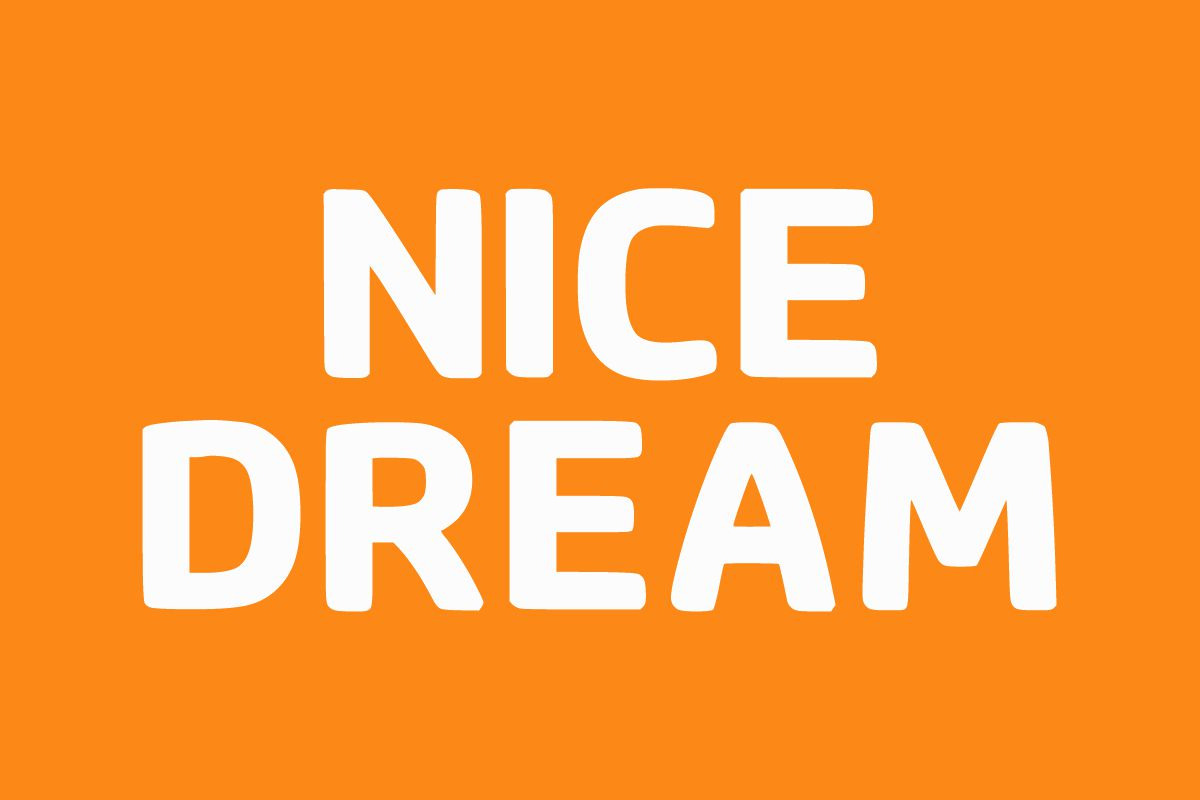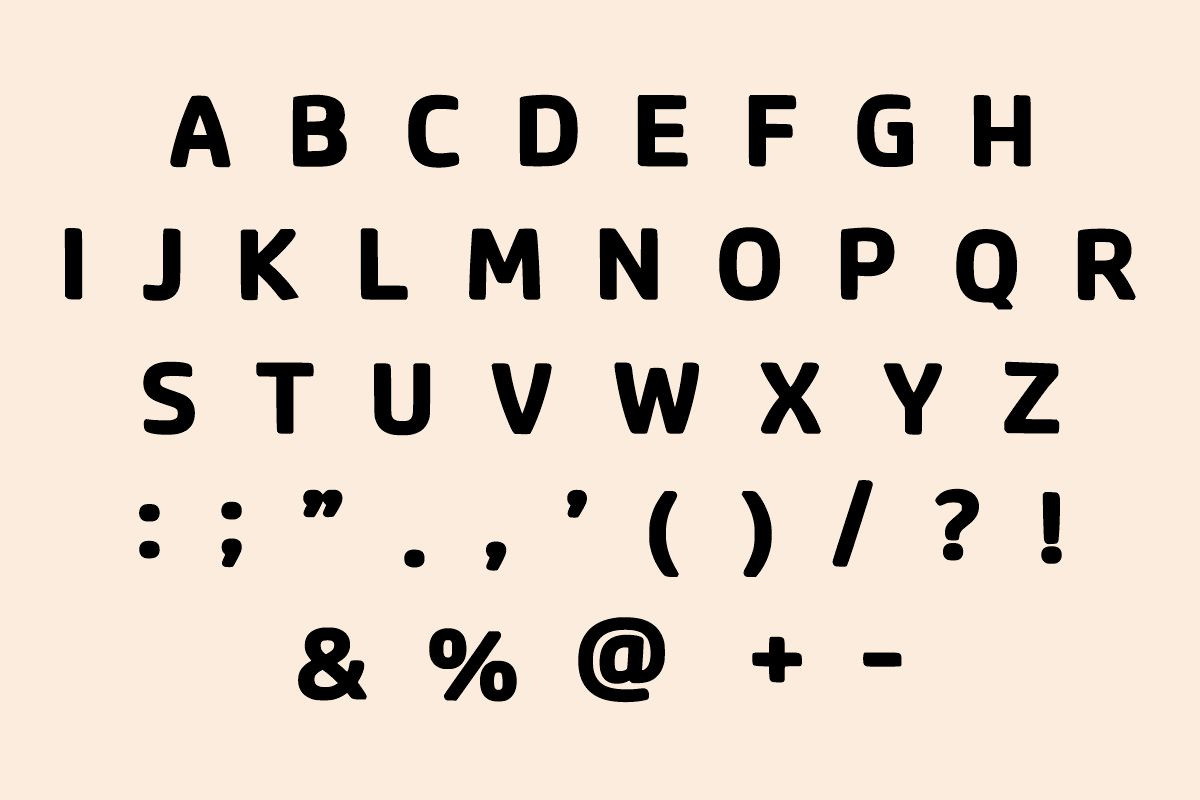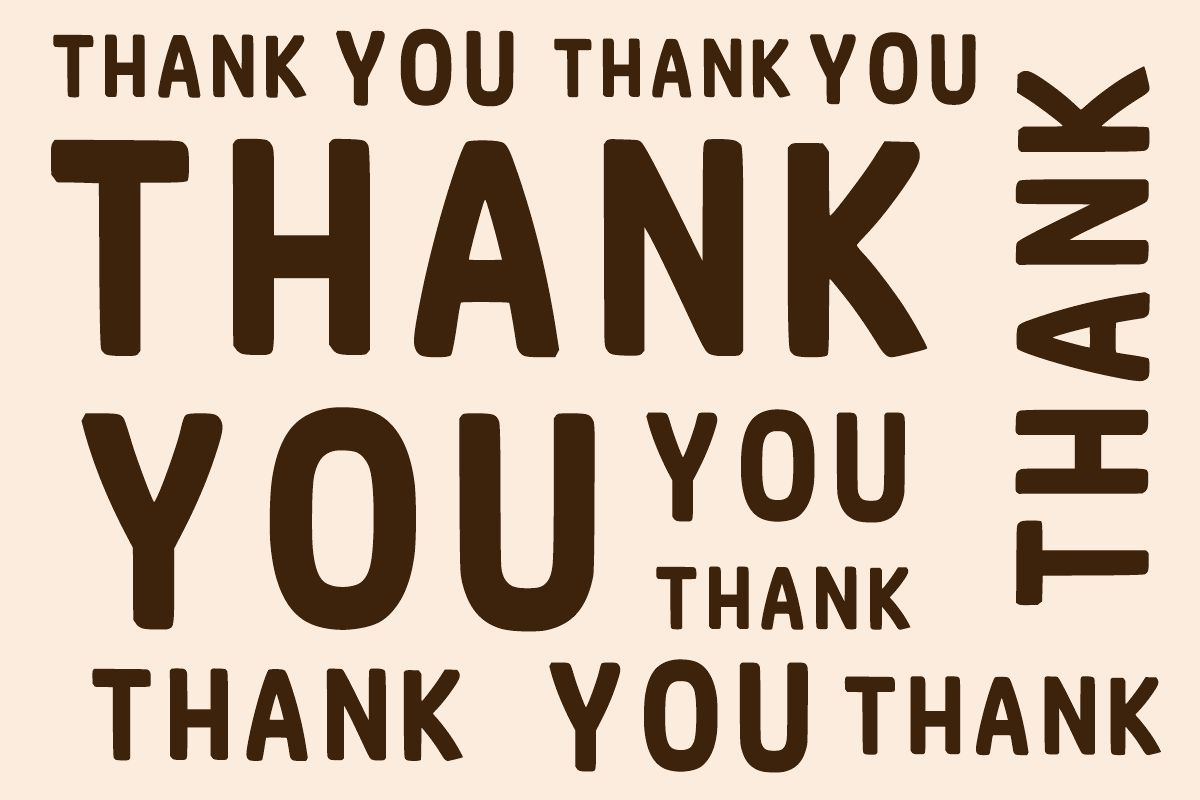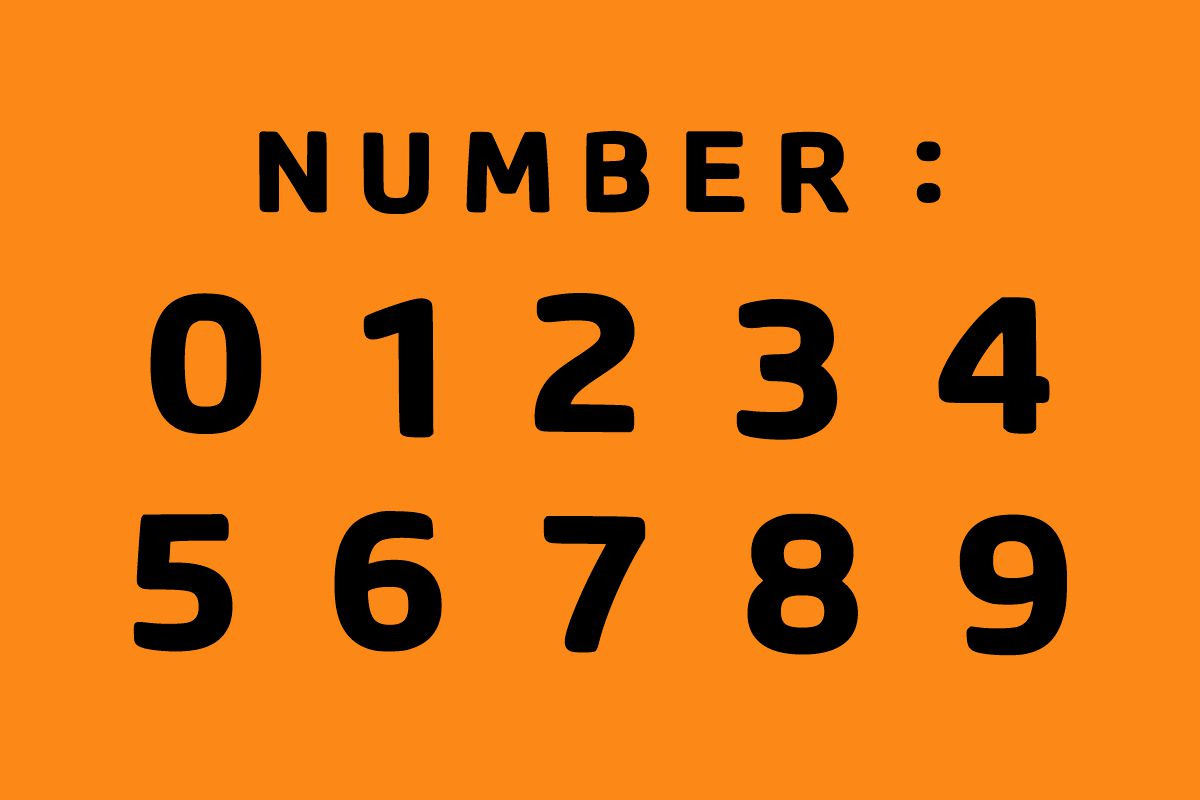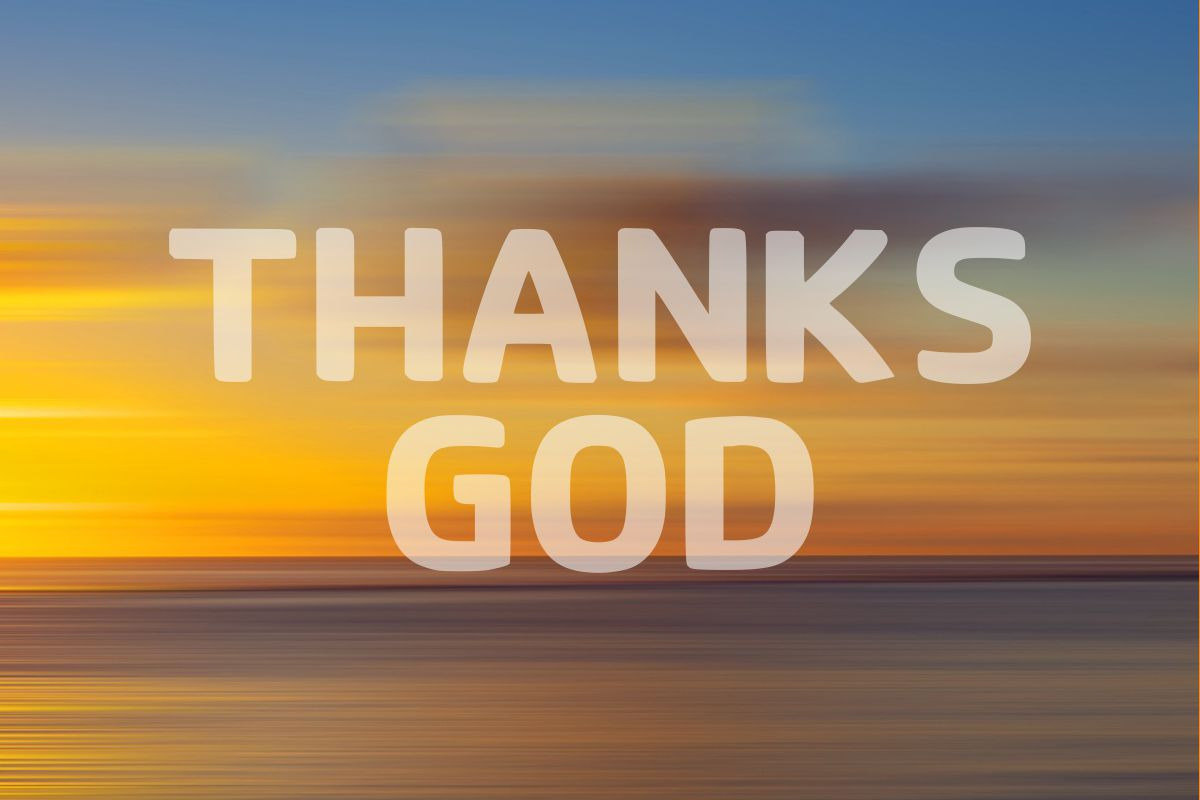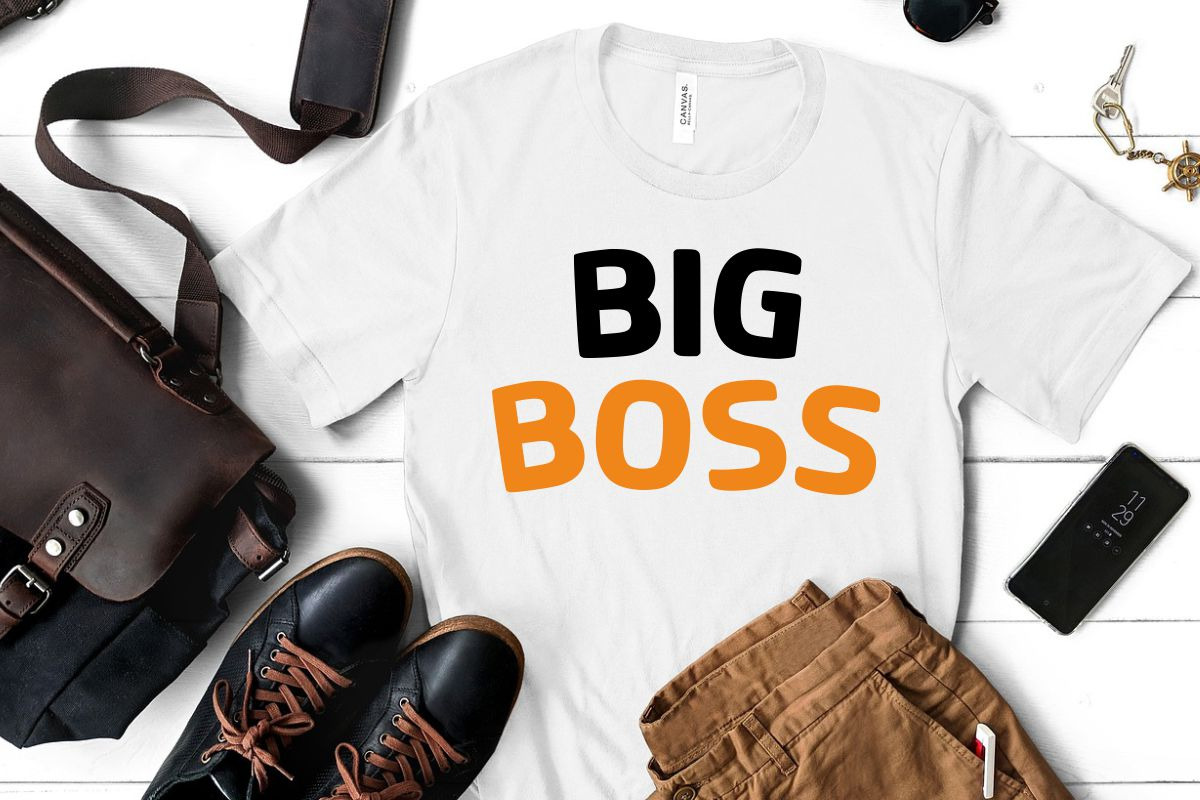
Hubby
HUBBY is an Uppercase font, bold, easy-to-read display font that conveys impeccable friendliness. Whether you’re using it for crafts, digital design, presentations, or greeting cards, this font has the potential to become your favorite go-to font, no matter the occasion!